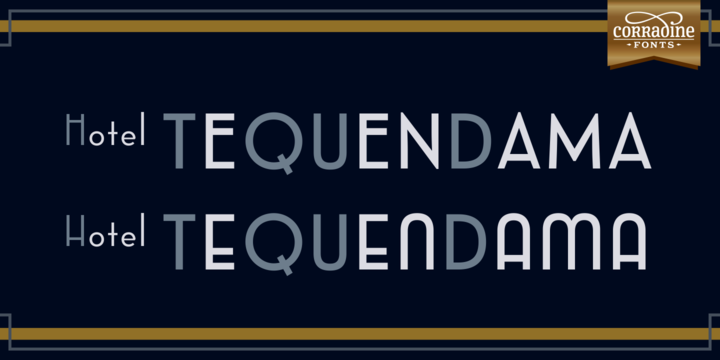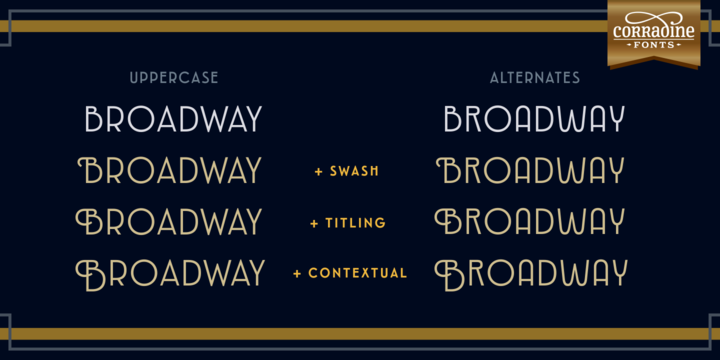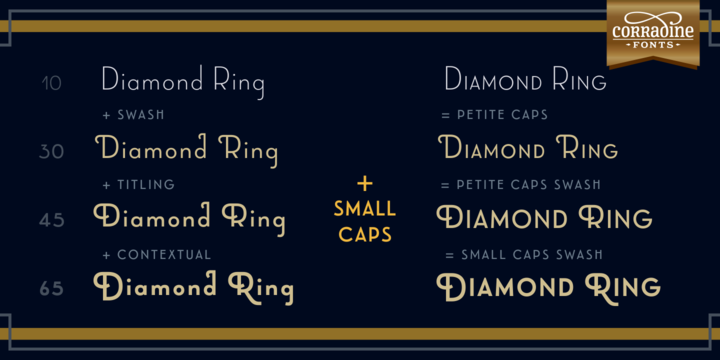
Introduction to Emblema Family Font
Emblema is an evocative font with an Art Deco style from early decades of the 20th Century.
Its geometric shapes give it a clean and modern look to the designs where it is applied .